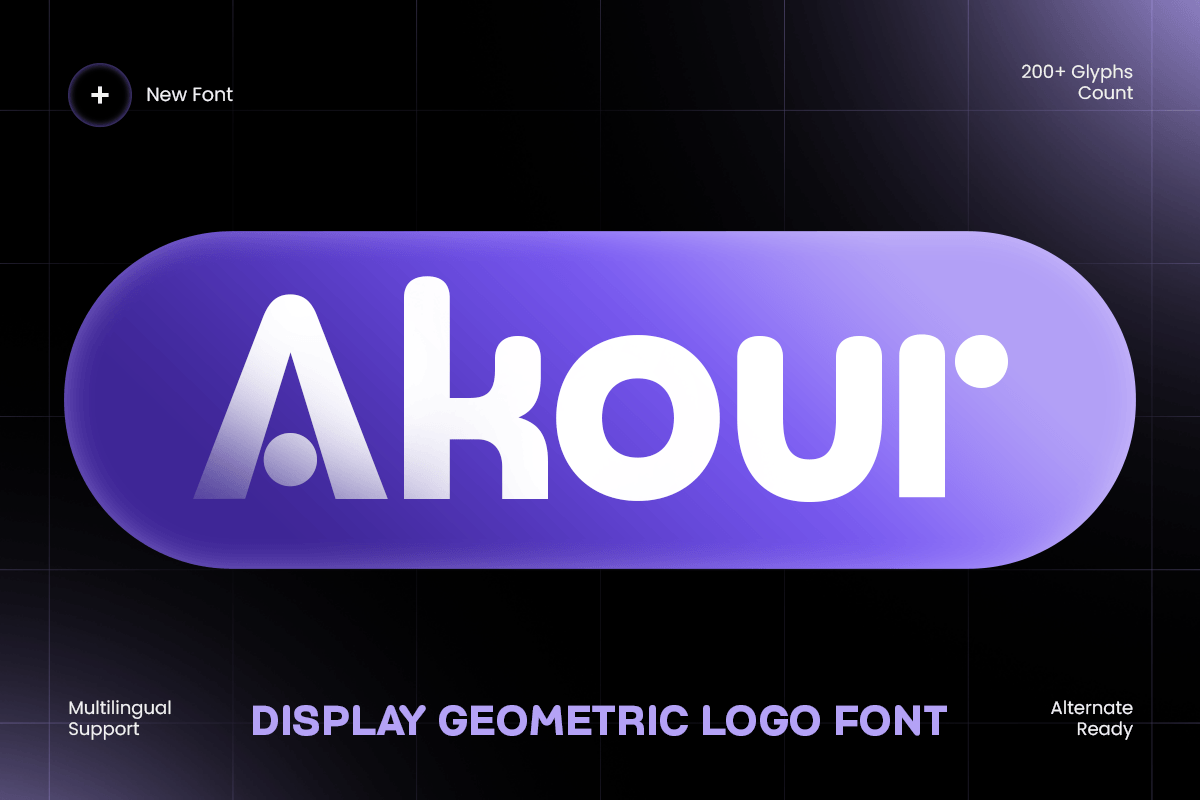
Akour
-Display Geometric Logo Font
Akour
Akour - Display Geometric Logo Font
Akour is a display geometric minimalist logo font designed to bring clarity, structure, and modern elegance to your visual identity. With clean shapes, balanced spacing, and refined geometric proportions, this typeface is perfect for logos, branding systems, packaging, editorial layouts, and digital design projects.
Created for designers who value simplicity with character, Akour blends minimalist aesthetics with strong display presence. Its sharp yet polished construction makes it ideal for corporate identities, creative studios, tech brands, lifestyle products, and modern visual campaigns that need a sleek, professional tone.
Whether used as a logo mark, headline, packaging title, or website display font, Akour delivers a clean and memorable appearance across both print and digital media.
Akour – Display Geometric Minimalist Logo Font Features
• Geometric minimalist design with modern logo appeal
• Perfect for branding, packaging, editorial titles, and digital layouts
• Clean proportions for refined and professional typography
• Ideal for tech, corporate, lifestyle, creative, and minimal brand identities
• OpenType features for enhanced typographic flexibility
Build clean and timeless branding with Akour – the perfect geometric minimalist font for modern logos, refined packaging, and professional visual identity. ✨